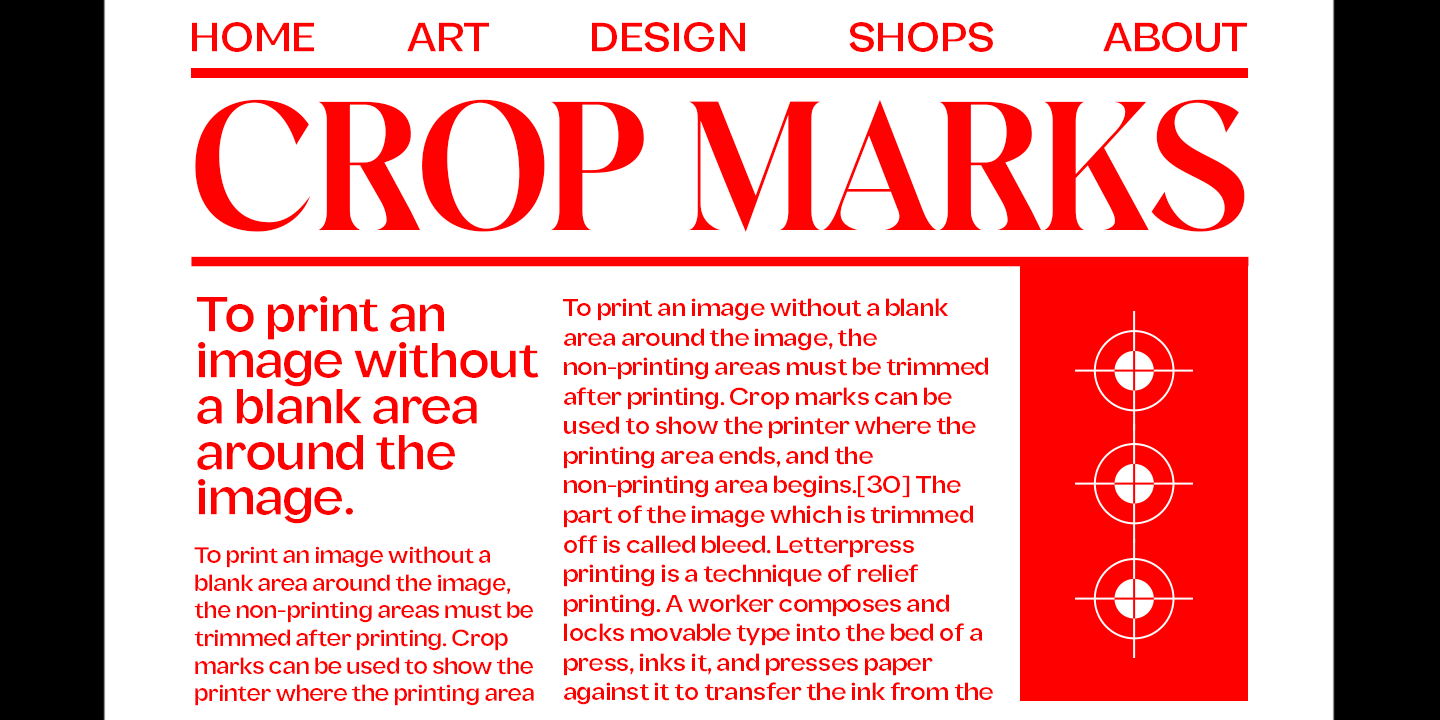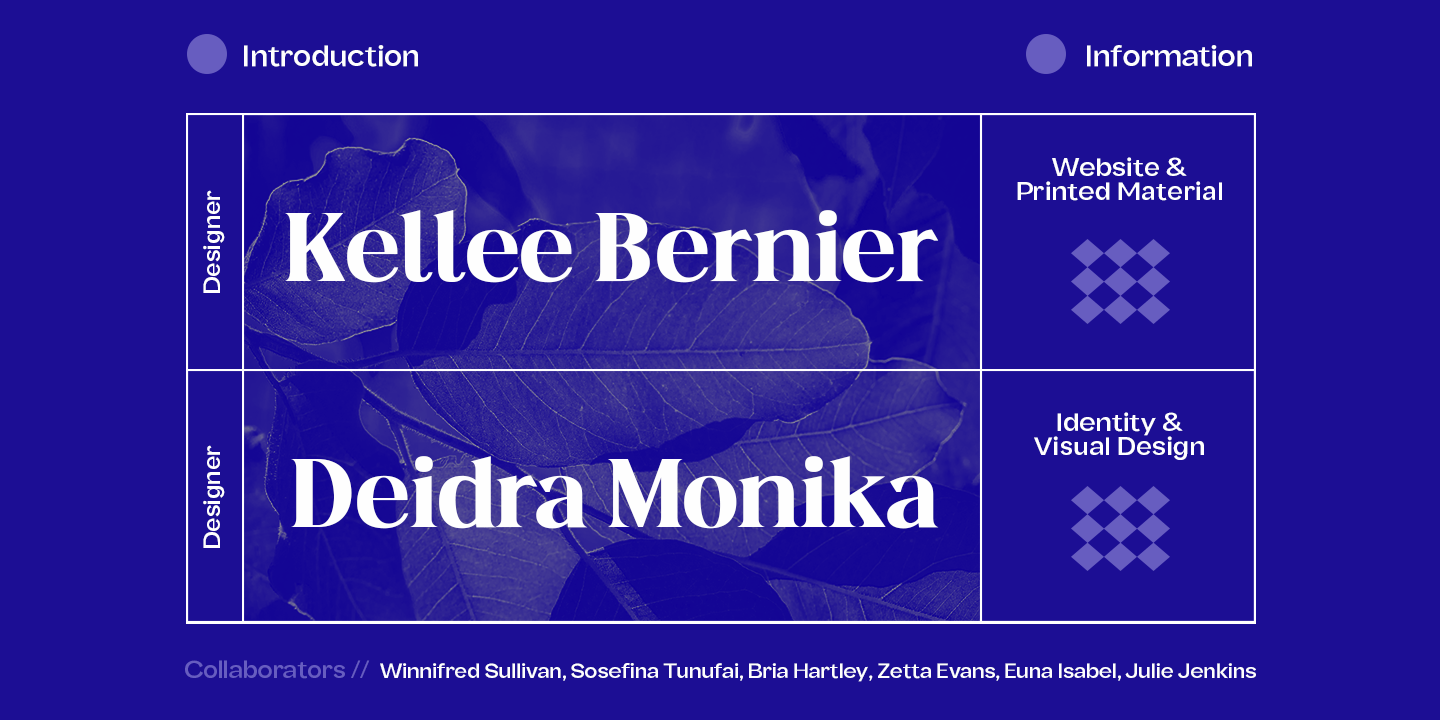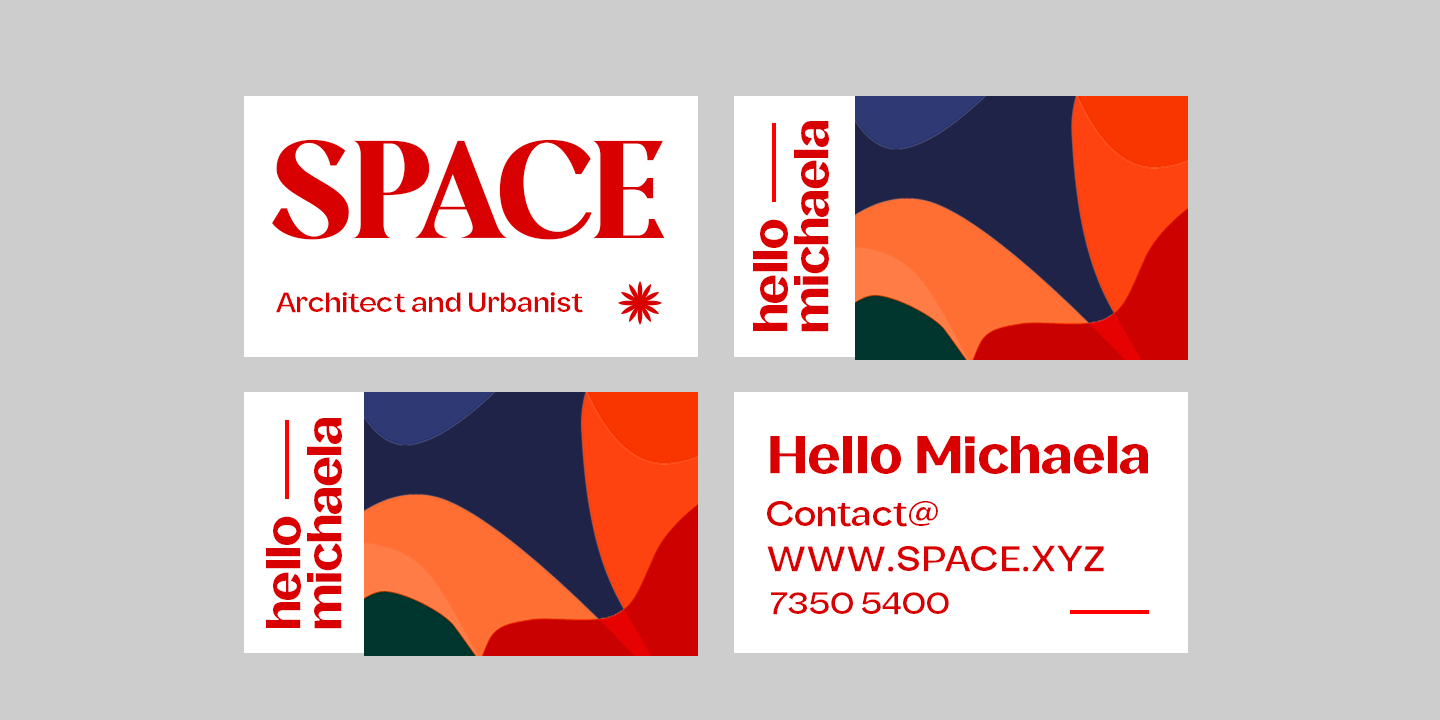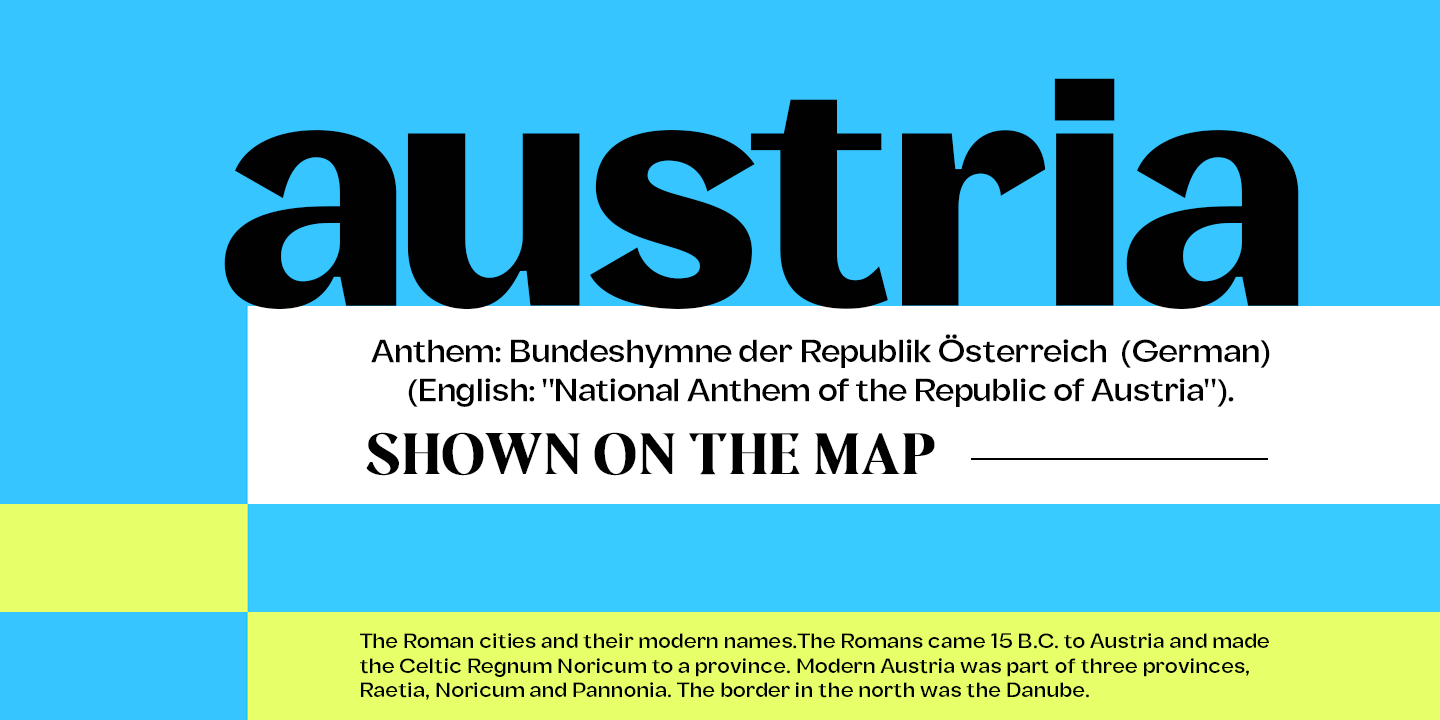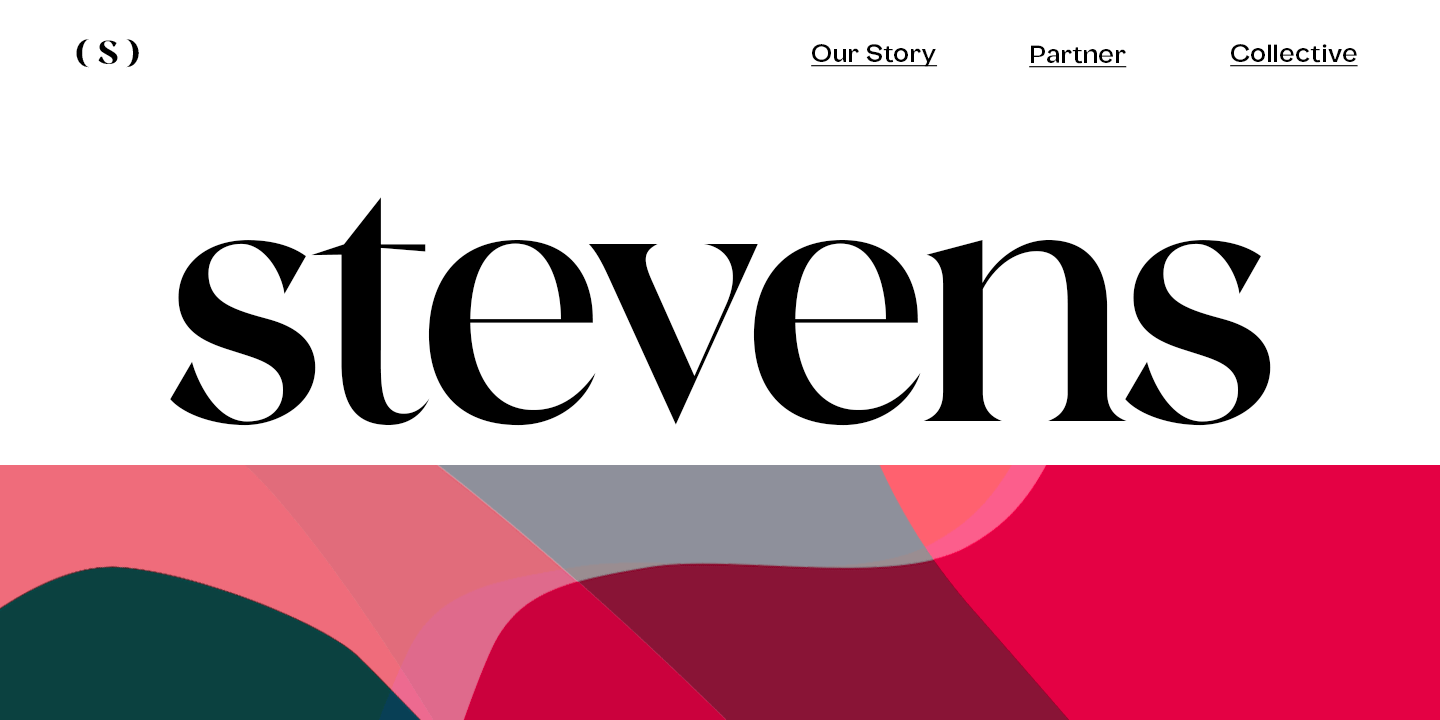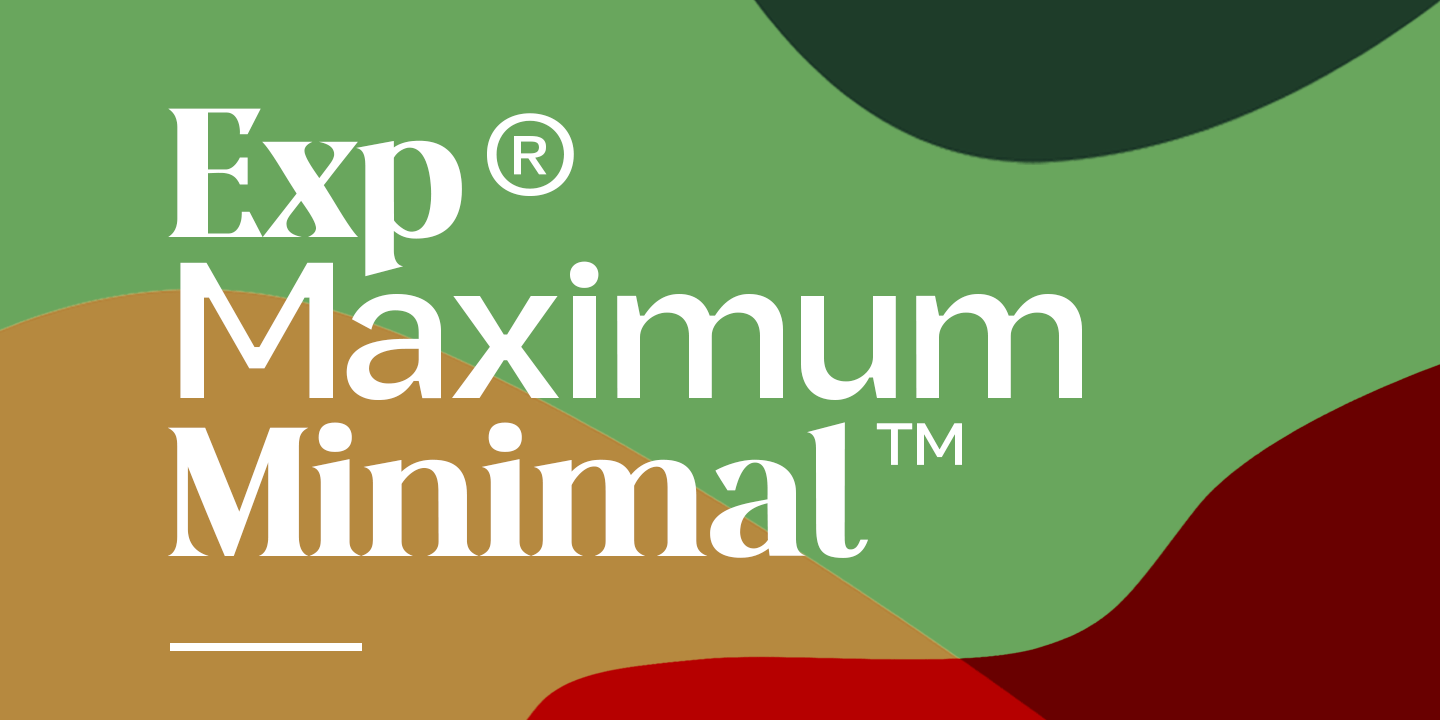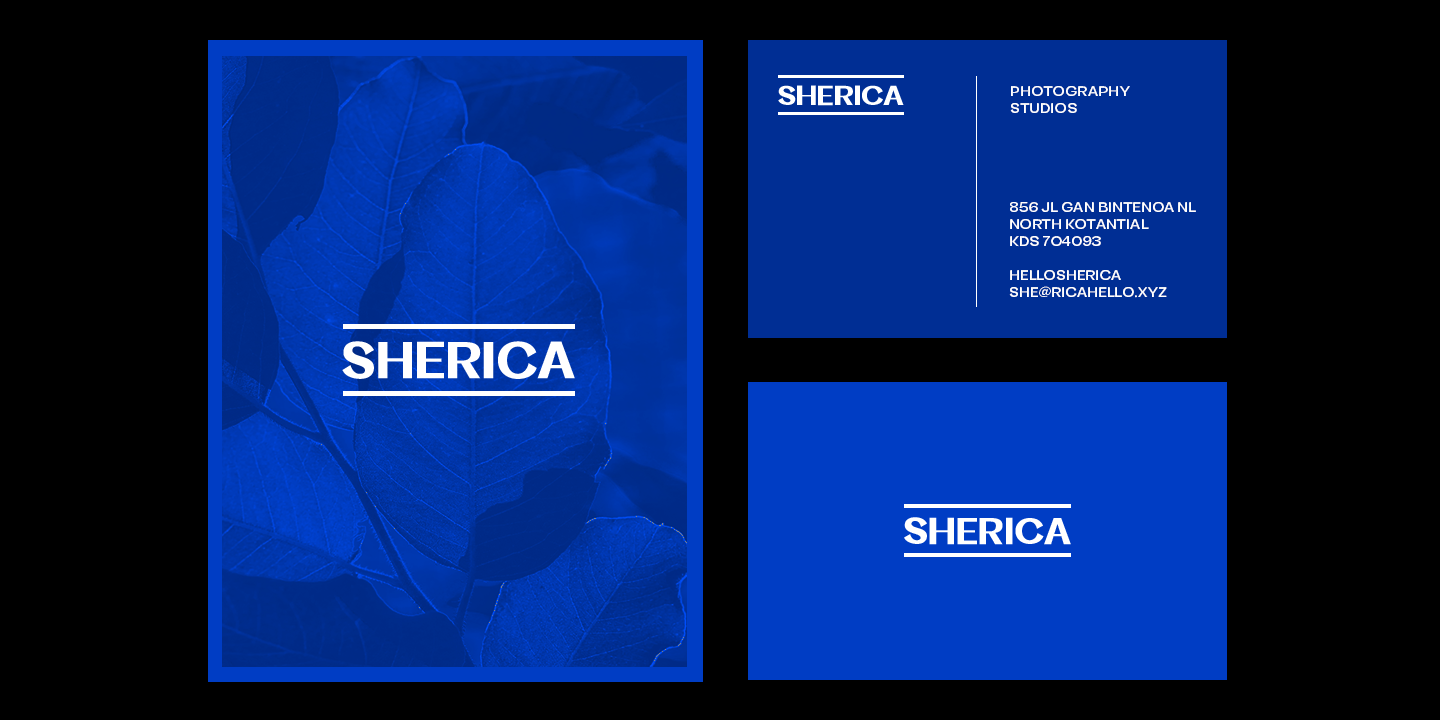
Fregan
About Fregan
Fregan Typeface is sharp serif font with an elegant feel. Unique character by combining geometric shapes with organic curvy details. It is a unique typeface for your individual personality. Inspired by old-style serif and contemporary fonts. And additional…